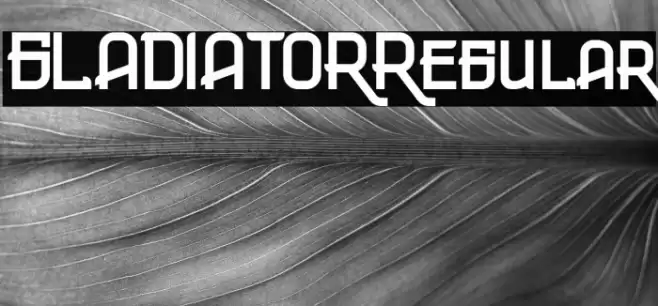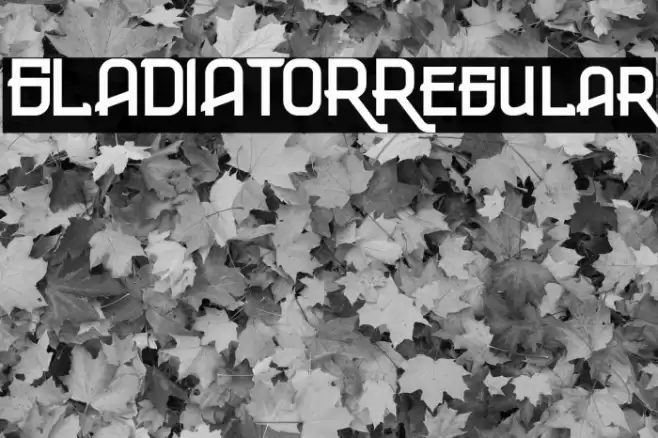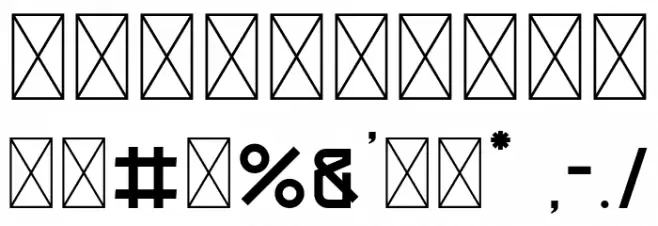
GLADIATORRegular Font
GLADIATORRegular Description
This font features a bold and striking design with geometric elements and sharp angles. The characters are constructed with a futuristic and industrial aesthetic, making it stand out with its unique style. The uppercase letters are particularly prominent, with a consistent height and width that create a uniform appearance. The font's design is reminiscent of digital or sci-fi themes, with a modern edge that is both eye-catching and distinctive. The absence of lowercase letters and the inclusion of special characters like #, %, &, and * suggest a focus on display and headline use rather than body text. The overall style is decorative and modern, suitable for projects that require a bold statement.
A bold, geometric font with a futuristic and industrial design from Regular fonts.
- Proposed Projects: Ideal for sci-fi movie posters, video game titles, tech company logos, and futuristic branding.